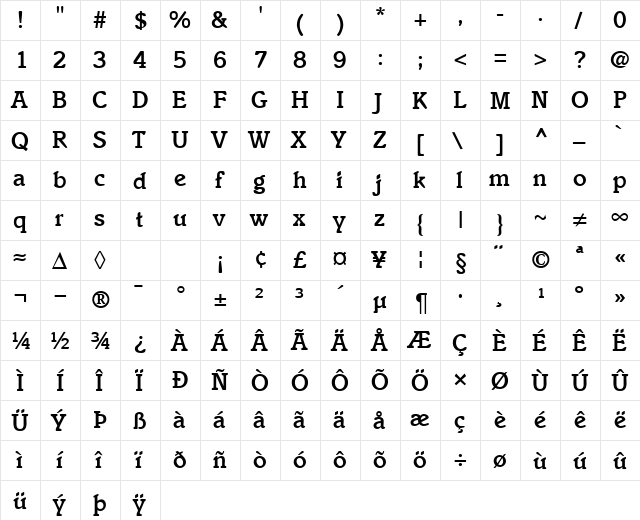
IstriaModern Bold
Design Context for IstriaModern Typeface
IstriaModern takes a measured approach to typography — its balanced proportions and neutral character make it a reliable workhorse for both digital and print work. Its bold stroke weight gives it real presence on the page.